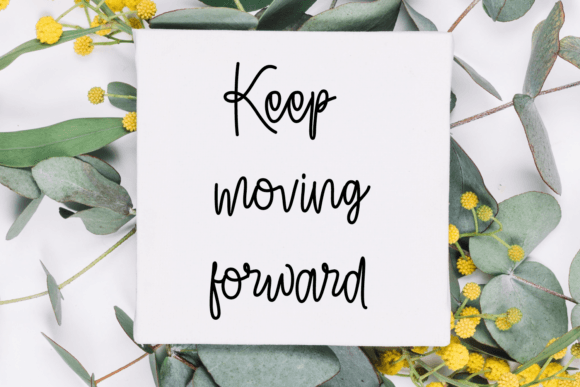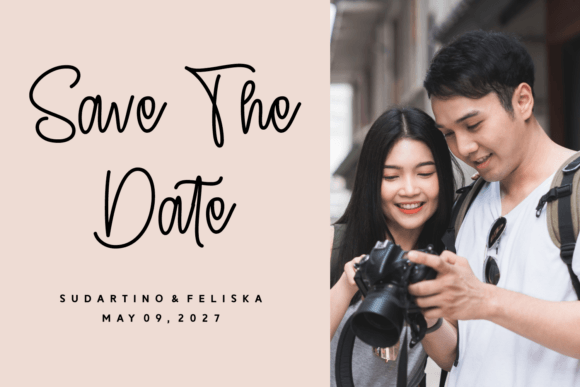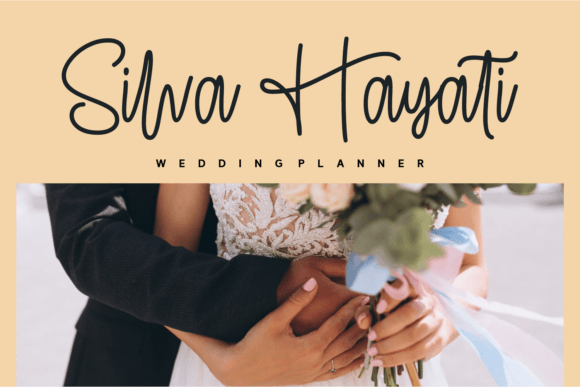
Introduction to Shine House Font
Have you ever stumbled upon the perfect font while working on a creative project, and suddenly, your entire design takes off in a new and exciting direction? For many designers, this moment is a thrill that never gets old. For me, it was the discovery of the Shine House Font – a playful and modern script font that instantly added a touch of magic to my design.
With its charming heart accents and flowing handwritten style, the Shine House Font is a design resource that’s sure to elevate any project. Whether you’re working on a romantic invitation, a logo, or a greeting card, this high-quality font effortlessly blends elegance with creativity. And the best part? It’s available for free download, making it a valuable addition to any designer’s toolkit.
For designers looking to add a whimsical and loving touch to their projects, the Shine House Font is a must-have. Its transparent background and versatile style make it an ideal choice for a wide range of creative projects – from branding to editorial design.
Key Features of Shine House Font
- Unique and stylish font with a transparent background, ideal for adding a touch of elegance to your designs.
- Includes a wide range of characters, including uppercase and lowercase letters, numbers, and special symbols.
- Perfect for use in various design projects, including logos, branding, and typography-based designs.
Honest Review: Shine House Font
I recently had the chance to work with the Shine House Font, and I have to say, it’s been a game-changer for my creative projects. This font is a design resource that shines (no pun intended!), offering a high-quality, elegant look that’s perfect for any project.
One of the things I love about the Shine House Font is its versatility. It’s perfect for both digital and print projects, and can be used for a wide range of applications, from logos to business cards to brochures.
- ⚠️ Limited character set, which may be a limitation for some designers
Overall, I’m really impressed with the Shine House Font. While it may have some limitations, its high-quality design and free download make it a valuable resource for any designer. If you’re looking for a new font to add to your design arsenal, I highly recommend giving it a try.
The Shine House Font is commonly used for creative projects such as logos, business cards, brochures, and social media graphics. Its high-quality design and transparent background make it a great choice for designers looking to create visually appealing designs.